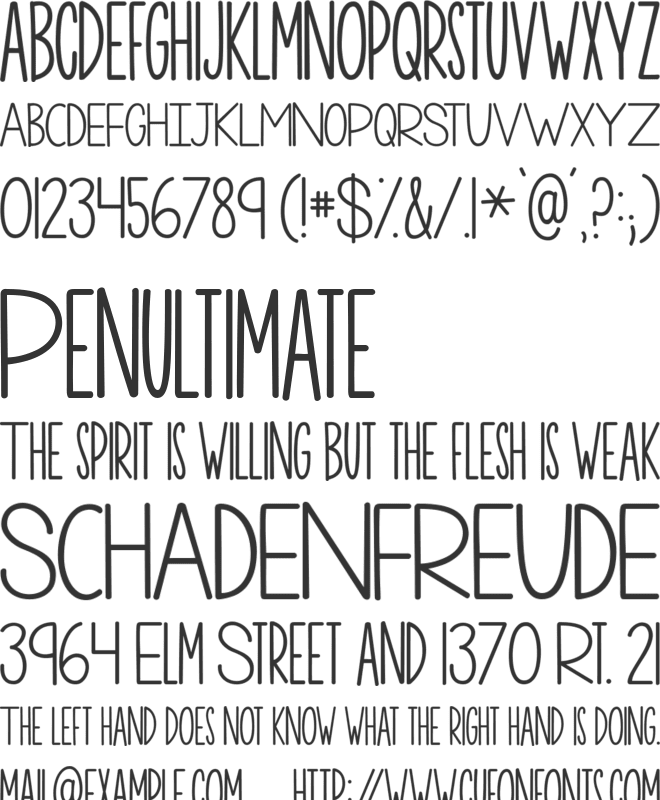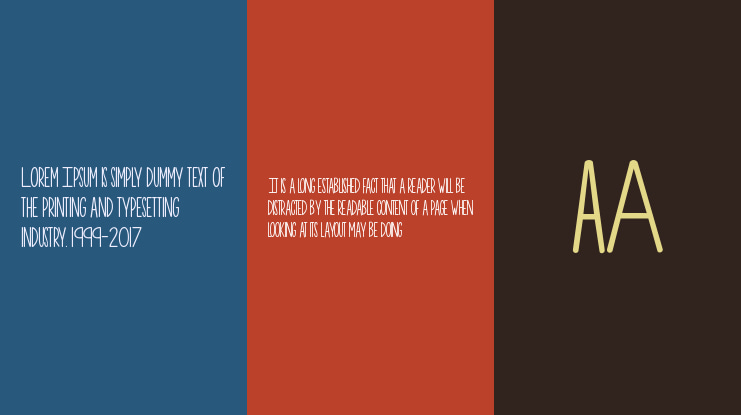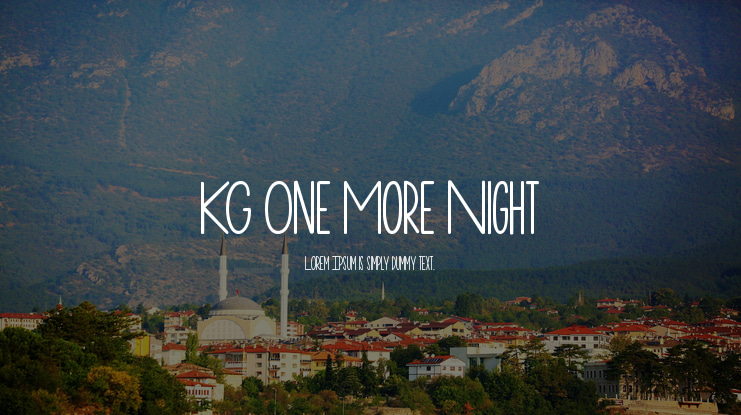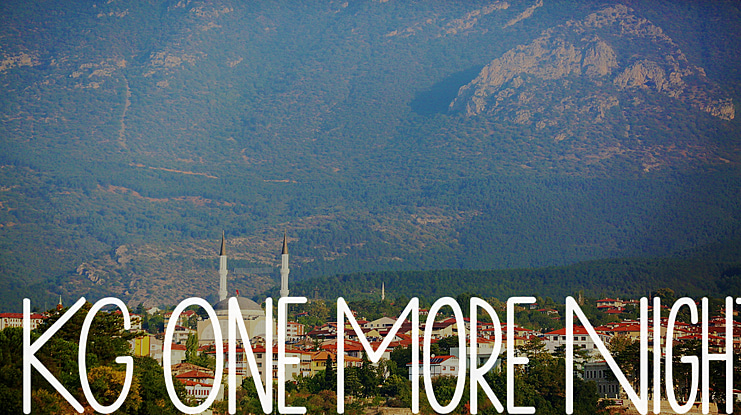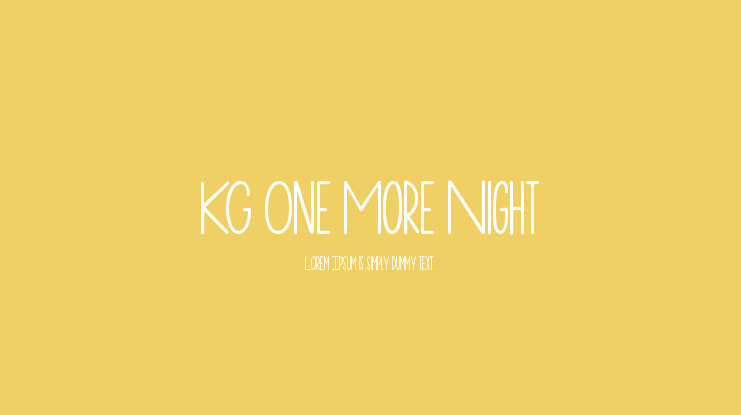
KG One More Night Font
Kimberly Geswein
Upper-case spots are wider versions, lower-case spots are skinnier versions. Free for personal use. Please donate for commercial use! thanks :)